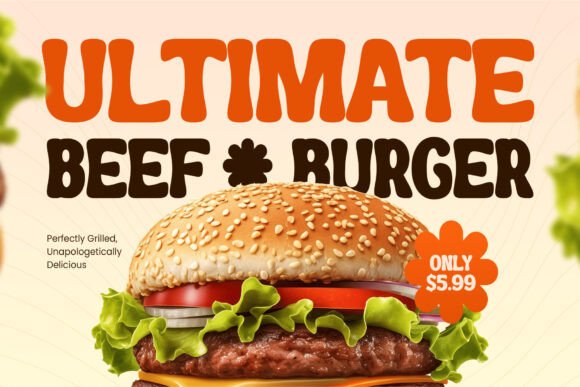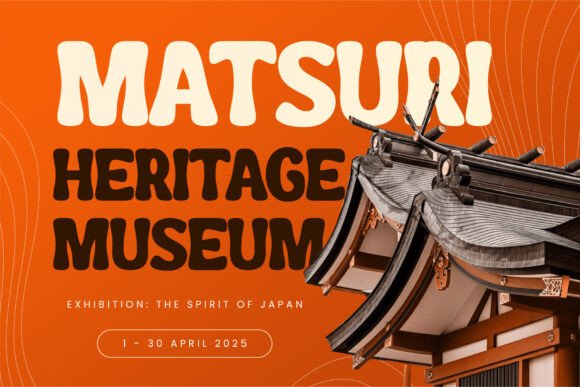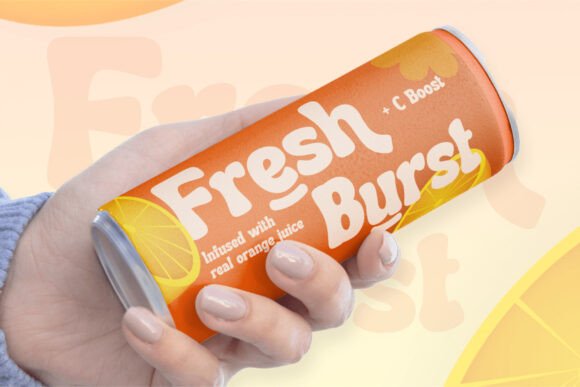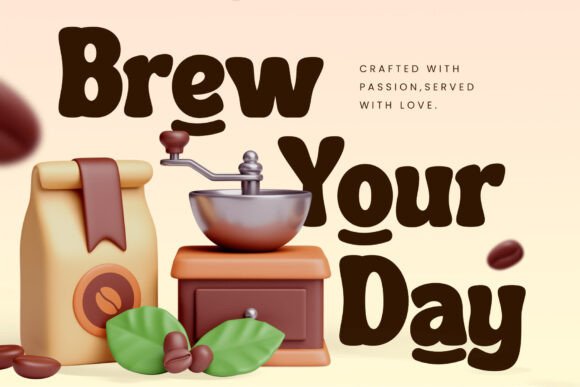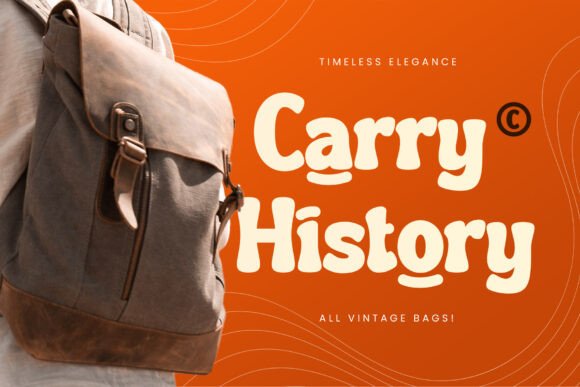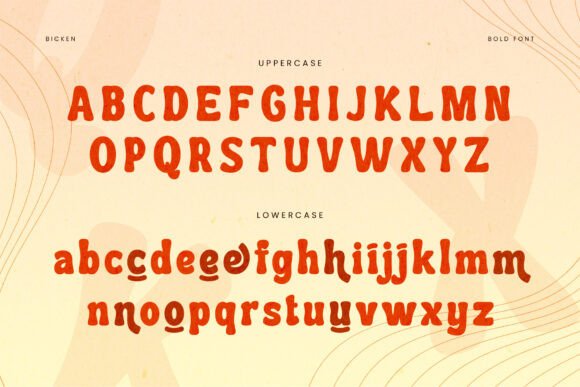
Unlock Your Creative Potential with the Bicken Font
Have you ever stared at a blank page, trying to conjure up the perfect font to match your design’s energy and personality? You know, that moment when everything feels stagnant, and you just need a spark to ignite your creativity? That’s where the Bicken Font comes in – a bold, playful display font designed to bring a lively, vibrant touch to your creative projects.
Created by Salamahtype, Bicken Font is perfect for adding a youthful, attention-grabbing flair to logos, branding, and posters. Its dynamic and approachable style makes it an excellent choice for designers looking to add some excitement to their work. With its quirky details and chunky letterforms, the Bicken Font is an invaluable addition to any designer’s toolkit, ensuring that their designs feel fresh, exciting, and full of character.
Bicken Font Key Features
- Font Family: Bicken Font is a unique, hand-drawn font designed to add a touch of playfulness and whimsy to digital content.
- Character Set: The font includes a wide range of characters, including uppercase and lowercase letters, numbers, and punctuation marks.
- Unique Characteristics: The font’s hand-drawn style and playful flair make it ideal for use in creative and design-focused applications, such as logos, branding, and advertising.
- Unique aesthetic: Bicken Font has a distinctive, eye-catching design that’s perfect for making a statement.
- Legibility: Despite its bold appearance, the font remains surprisingly readable, especially at larger sizes.
- Customization: The font offers a range of weights and styles, allowing for a high degree of customization.
- Limited language support: Bicken Font may not be optimized for non-Latin scripts, which could be a concern for multilingual projects.
- Not ideal for body text: While Bicken Font is great for headings and titles, it may not be the best choice for large blocks of body text.
Bicken Font is a bold, attention-grabbing font that’s perfect for making a statement. While it has some limitations, its unique aesthetic and customization options make it a great choice for designers looking to add some personality to their projects.
Use the Bicken font for bold, edgy, and attention-grabbing headlines and titles.